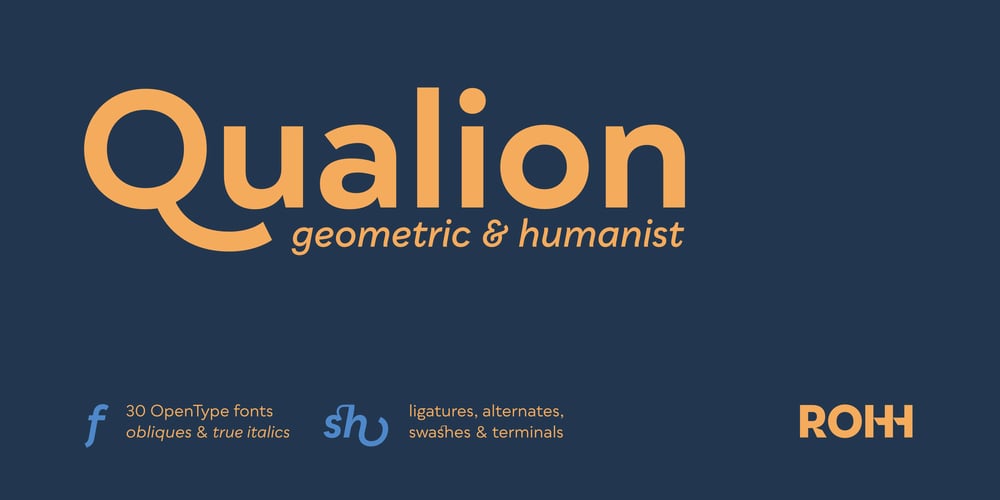
Qualion Font Family was designed by Roch Modrzejewski and published by ROHH. Qualion contains 30 styles and family package options. Qualion™ is a modern geometric grotesk typeface with humanist and calligraphic inspirations. The base of design is a minimal geometric sans serif with subtle humanist touches. Letter shapes are crafted with the highest care for beautiful proportions and excellent legibility. Qualion™ is a sibling of Qualion Round™ & Qualion Text™ – type family adjusted to fit paragraph text and small sizes best (narrower width, greater contrast, larger ink traps and tapering, adjusted spacing and kerning & even more calligraphic, elegant true italics). This versatile sans serif is not only well suited to clean, minimal projects and text paragraphs, but it has lots of features making it perfect for branding, logo design and all kinds of display use. All fonts are packed with alternates, swashes, terminal forms and ligatures, which make Qualion™ a very original ornamental type great for posters and packaging design. Qualion™ family consists of 10 weights with corresponding oblique and true italic styles, that give total of 30 styles. Both Oblique and Italic styles were hand drawn to get sharp and fine letter shapes. It has extended language support, as well as broad number of OpenType features, such as small caps, case sensitive forms, standard and discretionary ligatures, swashes, terminal forms, stylistic sets, contextual alternates, lining, oldstyle, tabular and small cap figures, slashed zero, fractions, superscript and subscript, ordinals, currencies and symbols.